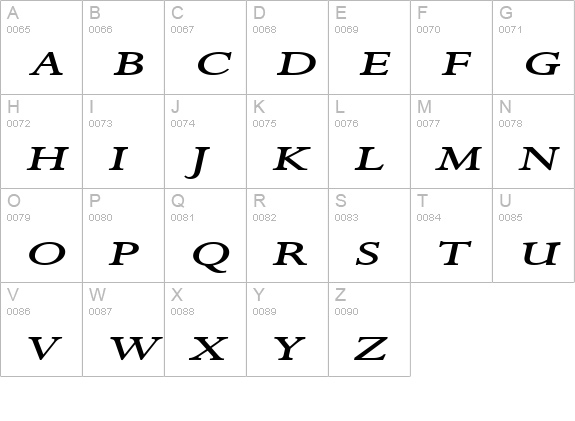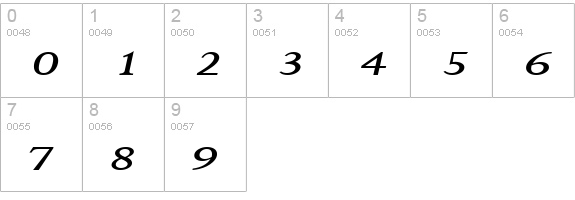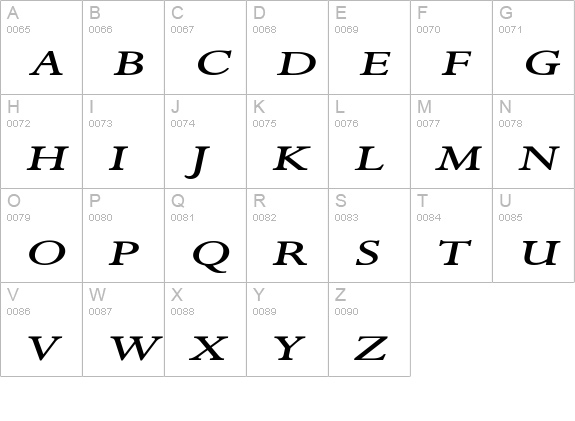
Rapid Extended BoldItalic is a distinctive, extended-width variant in the Rapid typeface family \xE2\x80\x94 well suited to design and typography projects.
Introducing Rapid Extended BoldItalic, a visually stunning font that effortlessly combines boldness, elegance, and a touch of modernity. This font is perfect for those seeking to make a bold statement, whether it be in a logo, headline, or any design project that requires a strong visual impact. Rapid Extended BoldItalic boasts an eye-catching combination of thick, strong strokes and sleek, slanted italics, creating a unique and dynamic look that instantly captures attention. The extended character set ensures versatility and allows for seamless integration into a wide range of design concepts. With its clean lines and confident curves, Rapid Extended BoldItalic exudes professionalism and sophistication. Its boldness adds a sense of strength and authority, while the italicized slant adds a touch of elegance and flair. This font is truly a powerhouse, capable of elevating any design to new heights. And the best part? Rapid Extended BoldItalic is available for free download at FontsMarket.com. This means that designers, creatives, and typography enthusiasts can easily access this remarkable font without any restrictions. Whether you're a seasoned professional or just starting your journey in the world of design, Rapid Extended BoldItalic allows you to unleash your creativity without any financial barriers. So why wait? Download Rapid Extended BoldItalic today and experience the freedom to create stunning designs that leave a lasting impression. This font is a game-changer, empowering you to make your mark in the design world with its boldness, elegance, and modernity. Don't miss out on this opportunity to enhance your projects with a font that sets you apart. Visit FontsMarket.com now and embark on your design journey with Rapid Extended BoldItalic.